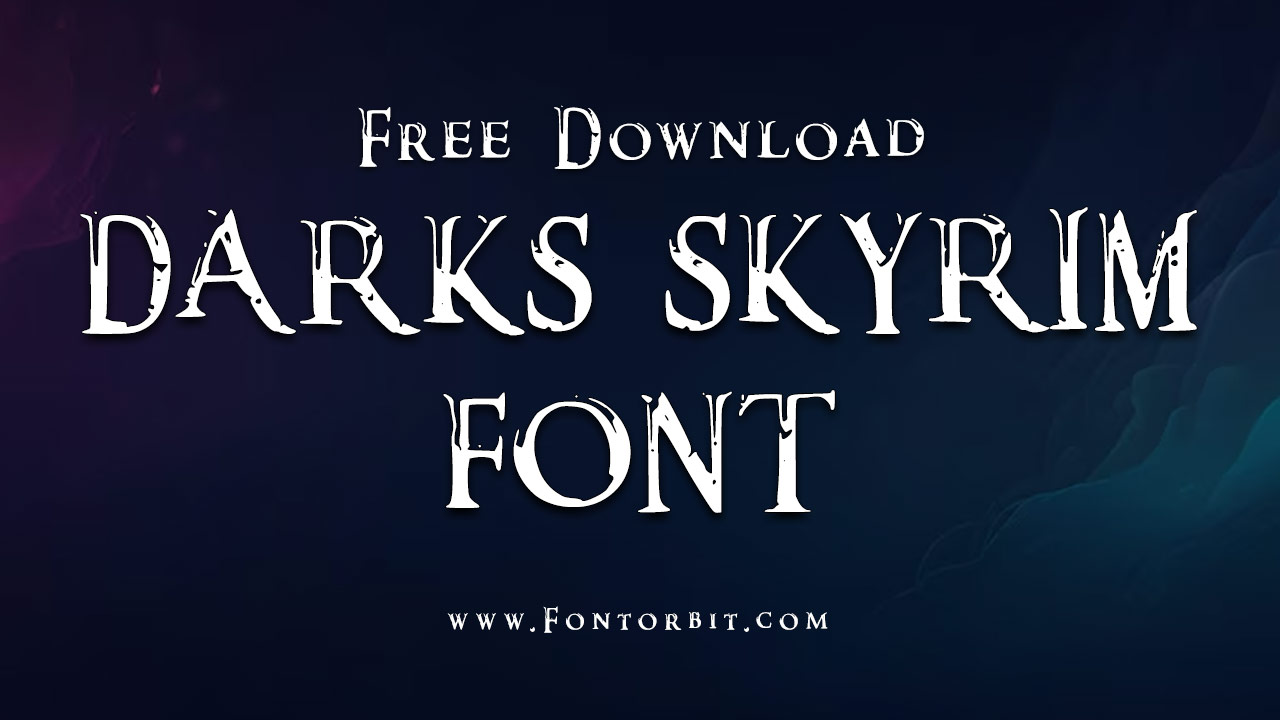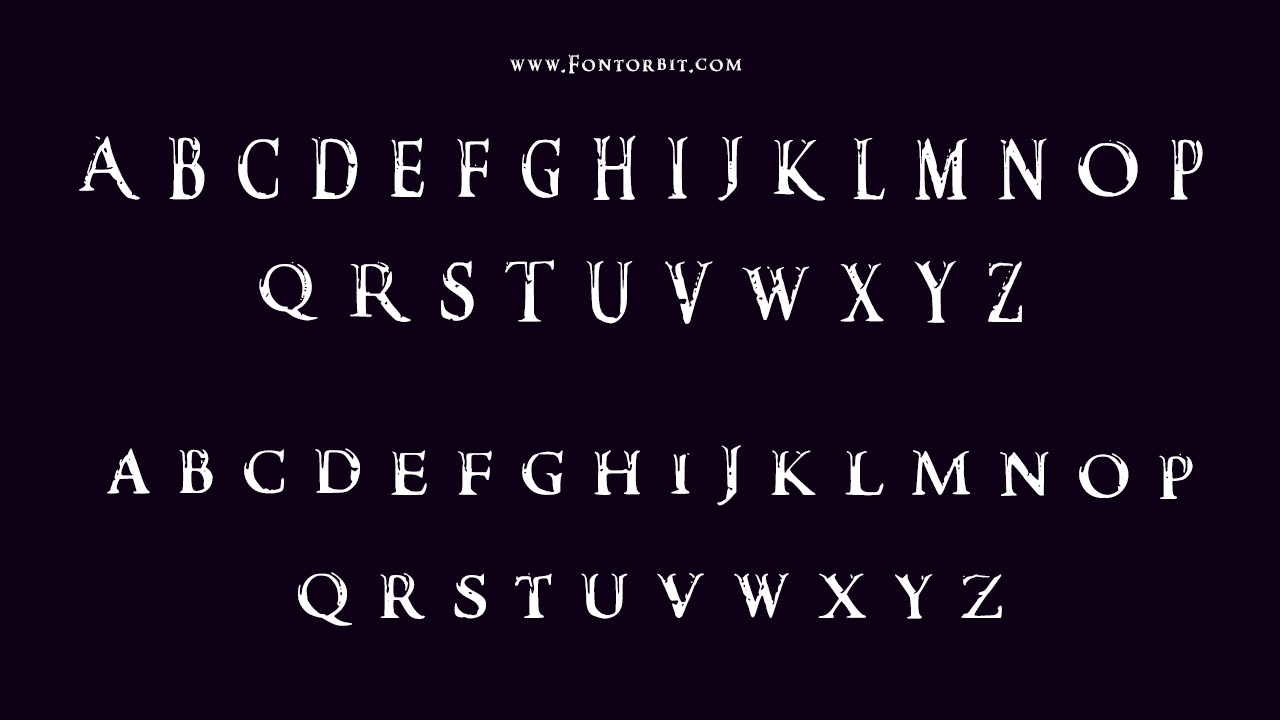
Darks Skyrim Font is a bold and mysterious typeface designed by DarkX ShadowX21, capturing the epic and fantasy-inspired atmosphere of the popular video game Skyrim.
The font is perfect for designs that seek a gothic, dark, and adventurous aesthetic. It is available in TTF and OTF formats. With its striking, medieval-style lettering, Darks Skyrim Font can add a dramatic flair to any project, from gaming logos to fantasy book titles.
The font belongs to the Gothic style, with a medium subfamily. It is a perfect choice for those who wish to evoke the dark, atmospheric vibe associated with Skyrim.
Notable Uses Of Darks Skyrim Font
Darks Skyrim Font excels in enhancing the visual identity of projects that revolve around themes of fantasy, power, and mystery. Its gothic design makes it ideal for various applications, including:
- Gaming Logos
- Fantasy-Themed Branding
- Headlines & Titles
- Product Packaging
- Event Invitations
- Promotional Materials
Darks Skyrim Font embodies the essence of fantasy and adventure with its bold, gothic design. Ideal for creating a dark and mysterious atmosphere, this font is perfect for gaming logos, fantasy-themed branding, and bold headlines.
Combining Darks Skyrim Font with complementary gothic or medieval-style fonts can enhance its impact and add depth to your design projects.
1.Is Darks Skyrim Font Suitable For All Types Of Design Projects?
Darks Skyrim Font is best suited for projects that emphasize themes of darkness, mystery, and fantasy.
2.What Makes Darks Skyrim Font Different From Other Gothic Fonts?
Darks Skyrim Font stands out due to its unique combination of medieval and fantasy-inspired design elements. Its bold strokes and intricate details contribute to its distinctive style.
3.What Are The Popular Uses Of Darks Skyrim Font?
Darks Skyrim Font is commonly used for gaming logos, fantasy book titles, promotional materials for themed events, and branding for businesses related to fantasy and adventure genres.
4.What Are The Design Principles Behind Darks Skyrim Font?
The design principles of Darks Skyrim Font focus on evoking a sense of power, mystery, and the supernatural. Its gothic style, characterized by bold strokes and sharp angles.
5.What Color Palette Is Typically Used With Darks Skyrim Font?
Darks Skyrim Font is often paired with dark colors like black, deep blue, and dark red to enhance its mysterious and powerful feel. It can also be contrasted against lighter, mystical colors like silver or white.